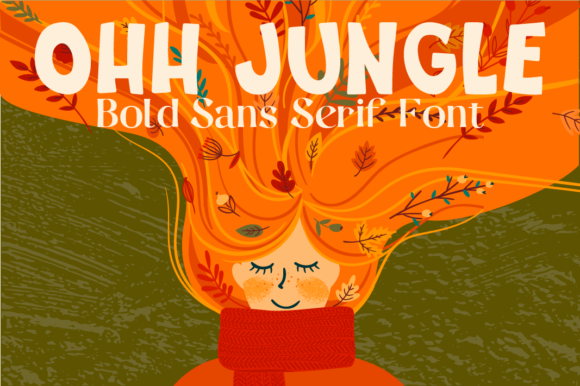
Welcome to the world of Ohh Jungle Font, a display font that exudes playfulness and authenticity, making it the perfect companion for your creative adventures. Step into a realm where imagination runs wild, and words dance with joy. Ohh Jungle Font is not just a collection of letters and symbols; it's an invitation to let your creativity soar.
With its bold and playful strokes, Ohh Jungle Font brings life to your designs. Its charming curves and quirky edges capture attention, making your words stand out from the crowd. Whether you're creating posters, invitations, social media graphics, or branding materials, Ohh Jungle Font adds a touch of whimsy and delight that resonates with audiences.
Immerse yourself in the boundless possibilities of Ohh Jungle Font. Its versatility shines as it effortlessly blends with various design styles, from playful and whimsical to elegant and sophisticated. Elevate your designs to new heights with Ohh Jungle Font, the perfect choice for capturing the essence of joy and creativity.
Unleash your inner child and embark on a design journey with Ohh Jungle Font. It's the perfect font for projects that aim to evoke a sense of nostalgia, innocence, and wonder. Bring your children's stories to life, create enchanting invitations for special occasions, or design playful social media posts that spark smiles.
With Ohh Jungle Font, you'll discover a treasure trove of creative opportunities. It's the key to unlocking your imagination and crafting designs that leave a lasting impression. Its versatility knows no bounds, making it a must-have for designers, marketers, and creatives alike.